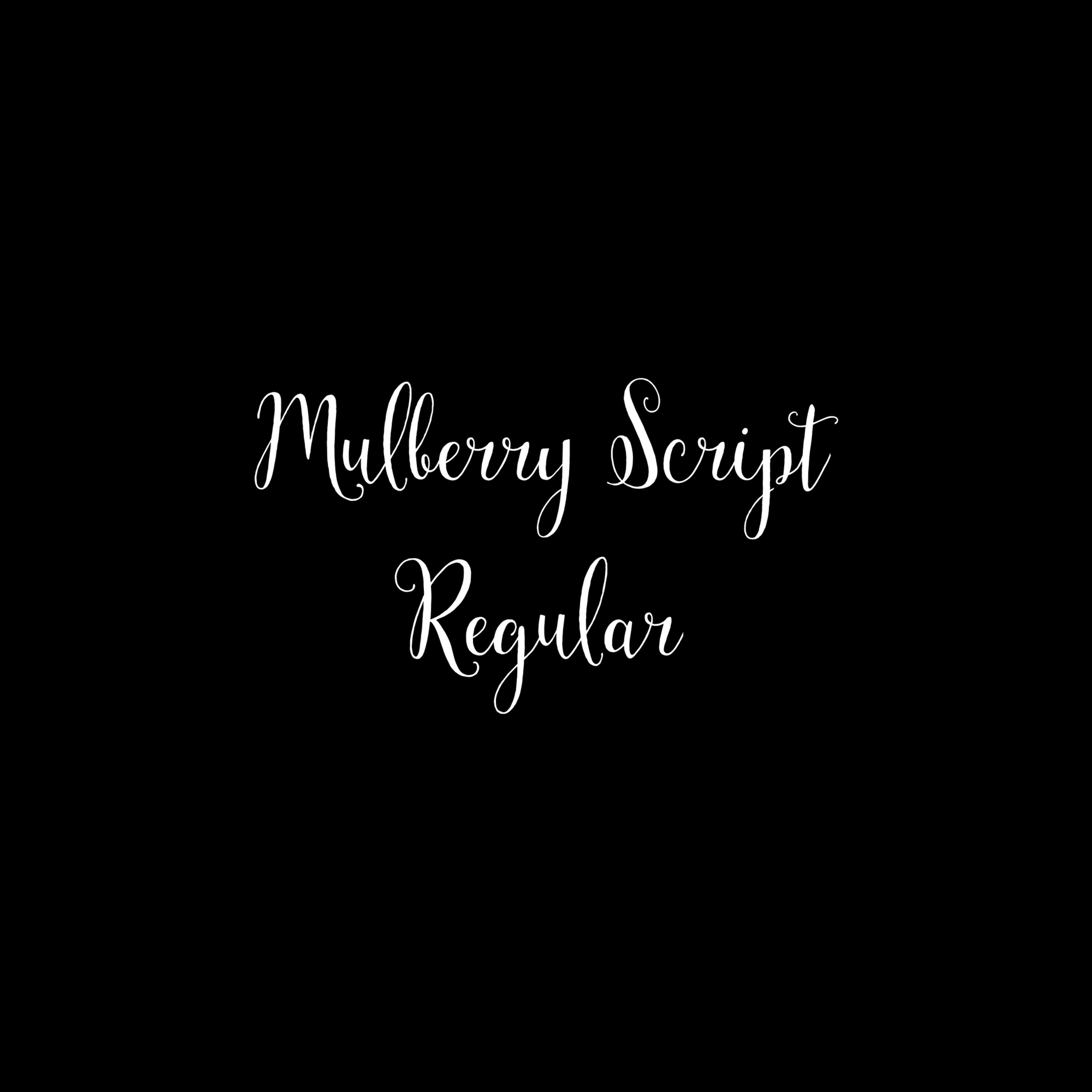
MULBERRY SCRIPT FONT is a handwritten calligraphy script. This script includes Latin Pro Characters.
Mulberry Script works great for fashion, apparel, stationery, magazines, letterpress, film, books and marketing projects.
Mulberry Script Font